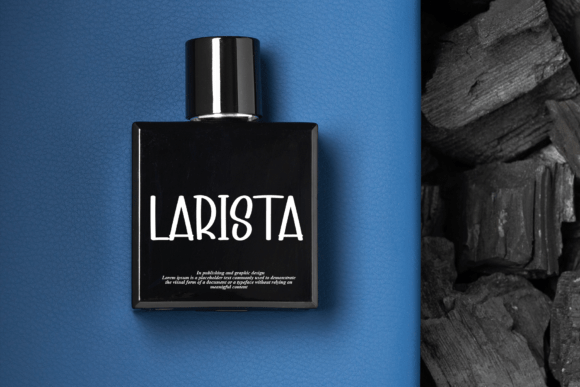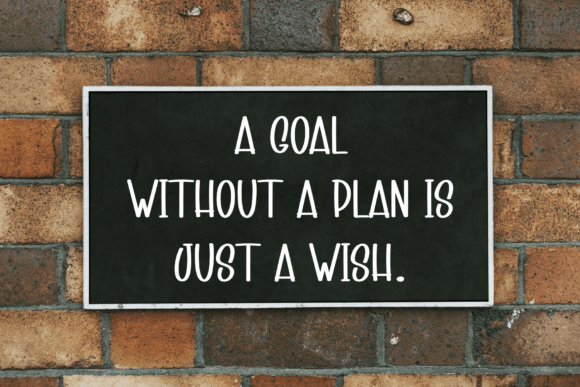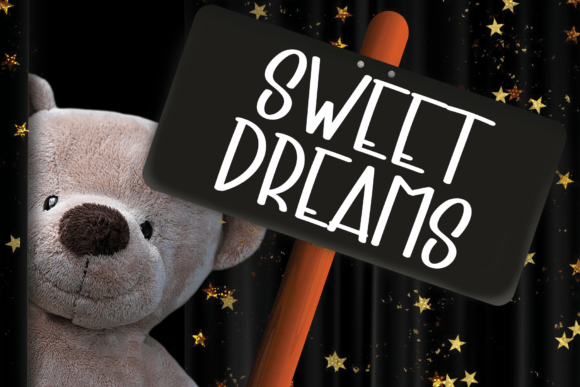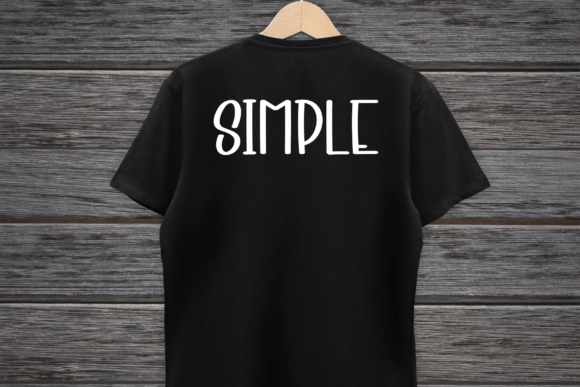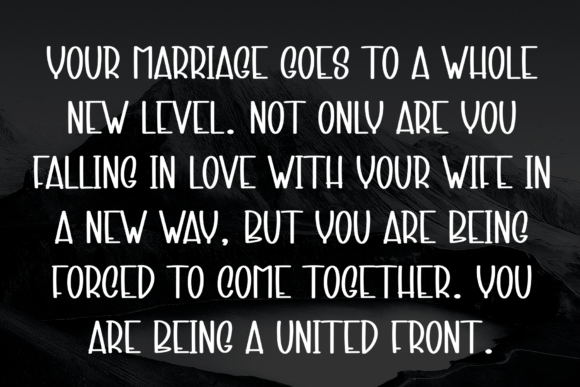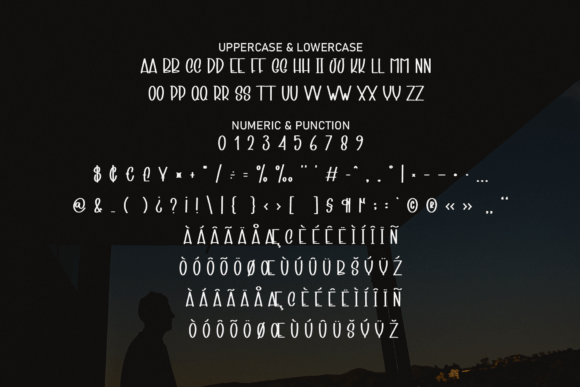
Introduction to Night Shadow Font
There’s something magical about that moment when a design idea clicks, and the creative juices start flowing. For many designers, it’s the perfect blend of inspiration and skill that brings a project to life. And for those who’ve been searching for the perfect font to elevate their designs, we’re excited to introduce you to the Night Shadow Font.
With its unique blend of simplicity and approachability, the Night Shadow Font is the perfect design resource for anyone looking to add a touch of warmth and personality to their creative projects. Whether you’re working on a branding campaign, packaging design, or digital content, this versatile font is sure to deliver clarity and charm in equal measure.
Key Features of Night Shadow Font
- Unique blend of elegance and mystery, perfect for creative projects requiring a touch of sophistication.
- Transparent background, allowing for seamless integration into various design elements and backgrounds.
- Perfect for use in creative projects such as logo design, branding, and typography-based art, where a unique and mysterious font is required.
Honest Review: Night Shadow Font
I recently stumbled upon the Night Shadow Font while searching for a design resource to enhance my creative project. The free download caught my attention, and I must say it’s been a game-changer for my designs.
What works well: ✨ The font’s high quality and sleek design make it perfect for projects that require a touch of sophistication. The transparent background allows for seamless integration with any background image, giving my designs a clean and polished look.
Some of the notable features include:
- Highly versatile and suitable for a wide range of creative projects
- Transparent background for easy integration with background images
- High-quality design that’s perfect for print and digital media
Overall impression: I’m thoroughly impressed with the Night Shadow Font, and I would highly recommend it to designers looking for a high-quality, versatile font for their creative projects.
The Night Shadow Font is a high-quality, free download design resource ideal for creative projects that require a sophisticated and mysterious touch. Its transparent background makes it easy to integrate into various design elements.
The Night Shadow Font is perfect for a variety of creative projects, including: mystery novels, horror movies, and dark fantasy art. Its sophisticated and mysterious touch makes it ideal for any project that requires a sense of intrigue and suspense.